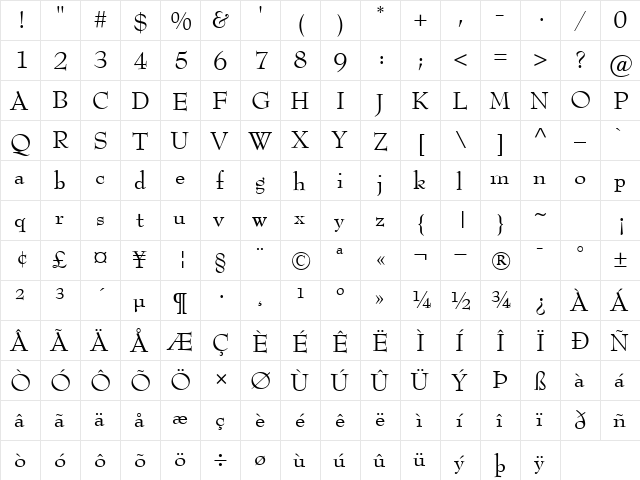
AI Bernhard Modern Medium
Design Context for AI Bernhard Modern Typeface
AI Bernhard Modern offers clean, dependable letterforms without strong stylistic allegiance, making it a practical choice for designers who need flexibility.
Pro Tip: Pair AI Bernhard Modern with a font of contrasting weight or personality to build a more expressive typographic hierarchy.